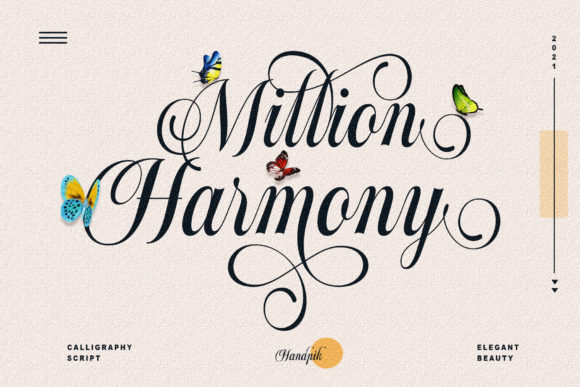
Journey into the realm of Million Harmony Font, a captivating script font that captures the essence of handwritten elegance. Step into a world where words dance with grace, and emotions find their voice. Million Harmony is not just a font; it's an artistic expression, a testament to the beauty of human touch in a digital world.
With its flowing curves and delicate strokes, Million Harmony adds a touch of romance and intimacy to your creations. Whether you're crafting heartfelt greeting cards, designing eye-catching headlines, or simply adding a personal touch to your digital projects, this font is your perfect companion. Its versatility knows no bounds, from personal invitations and love letters to whimsical posters and social media graphics.
Million Harmony's charm lies in its ability to evoke emotions, to transform words into heartfelt messages that resonate with your audience. Its handwritten style creates a sense of authenticity and connection, making your words come alive with warmth and sincerity. Whether you're a creative professional, a small business owner, or simply someone who appreciates the beauty of typography, Million Harmony is the font that will elevate your projects to new heights.
Immerse yourself in the world of Million Harmony and let your creativity flourish. Experience the joy of creating designs that speak to the heart, that capture the essence of your message, and that leave a lasting impression on all who behold them. Embrace the power of Million Harmony and unlock the full potential of your creative vision.